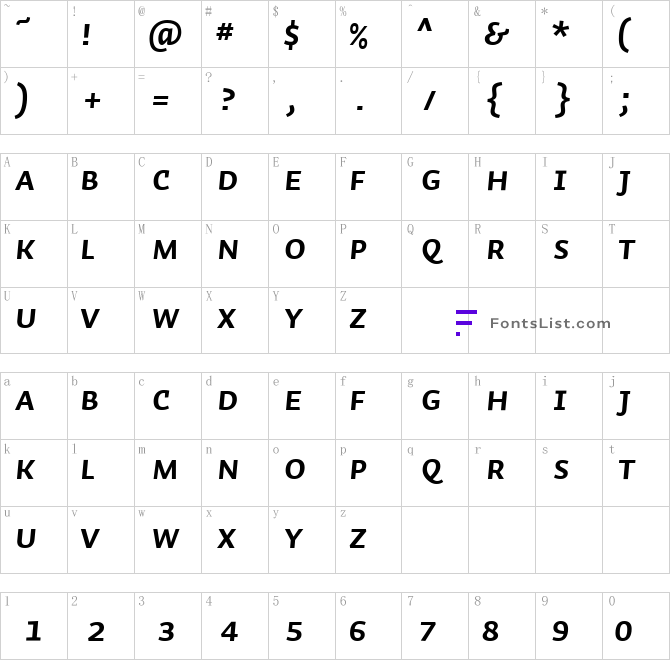
• Font Name:Auto 2 Lt SmCp
• Subfamily:Bold Italic
• Subfamily:Underware: Auto 2 Bold Italic SmCp: 2004
• Full Name:Auto2-BoldItalicSmCp
• Weight:600
Auto2-BoldItalicSmCp.ttf is a very beautiful artistic font, Auto2-BoldItalicSmCp.ttf is widely used in the design and printing of various books and pictures,Auto2-BoldItalicSmCp.ttf has a strong visual impact,Auto2-BoldItalicSmCp.ttf is a commonly used font in newspapers, magazines and books, and is used in posters, e-commerce Poster design, store design, logo design, font design and other fields.Auto2-BoldItalicSmCp.